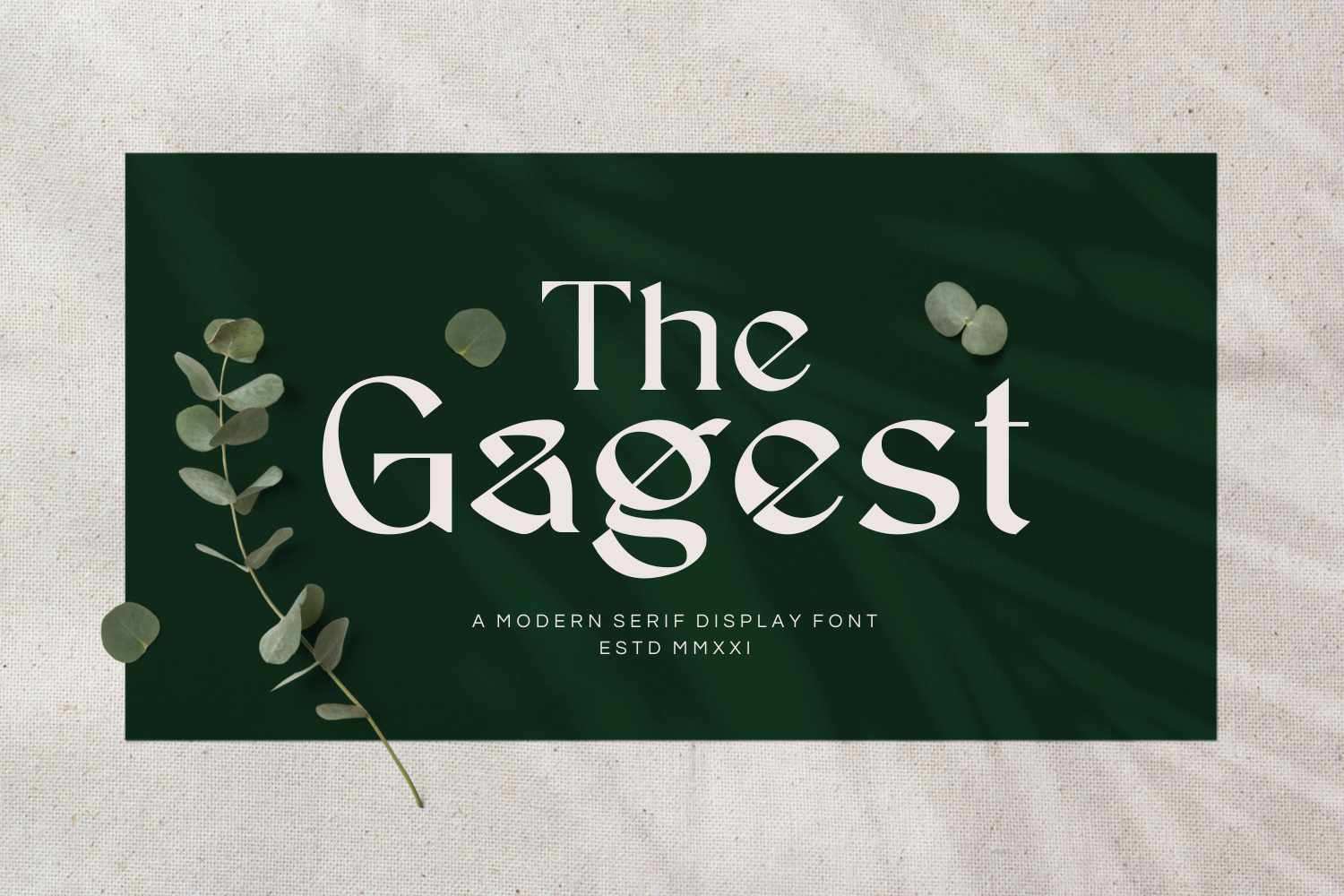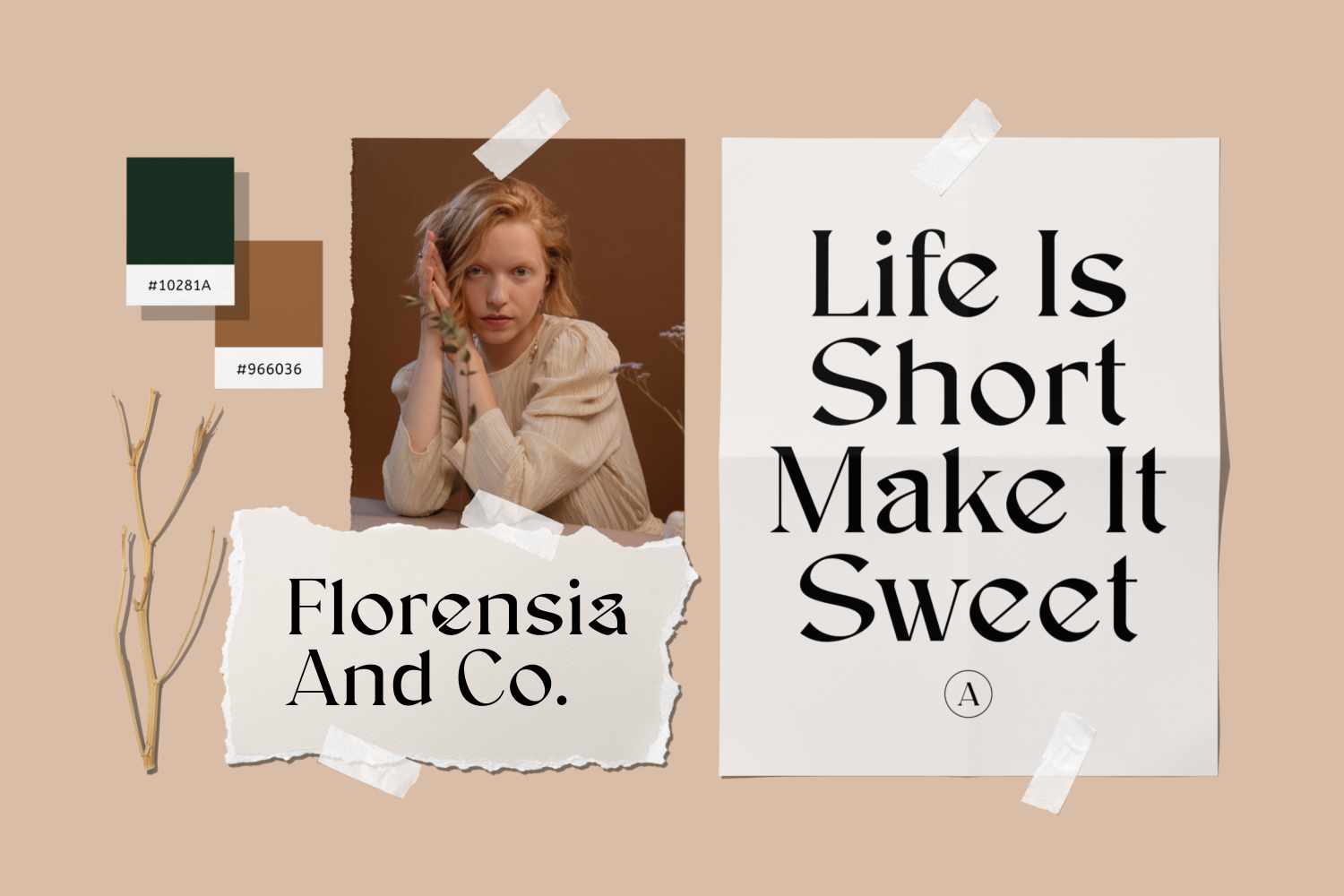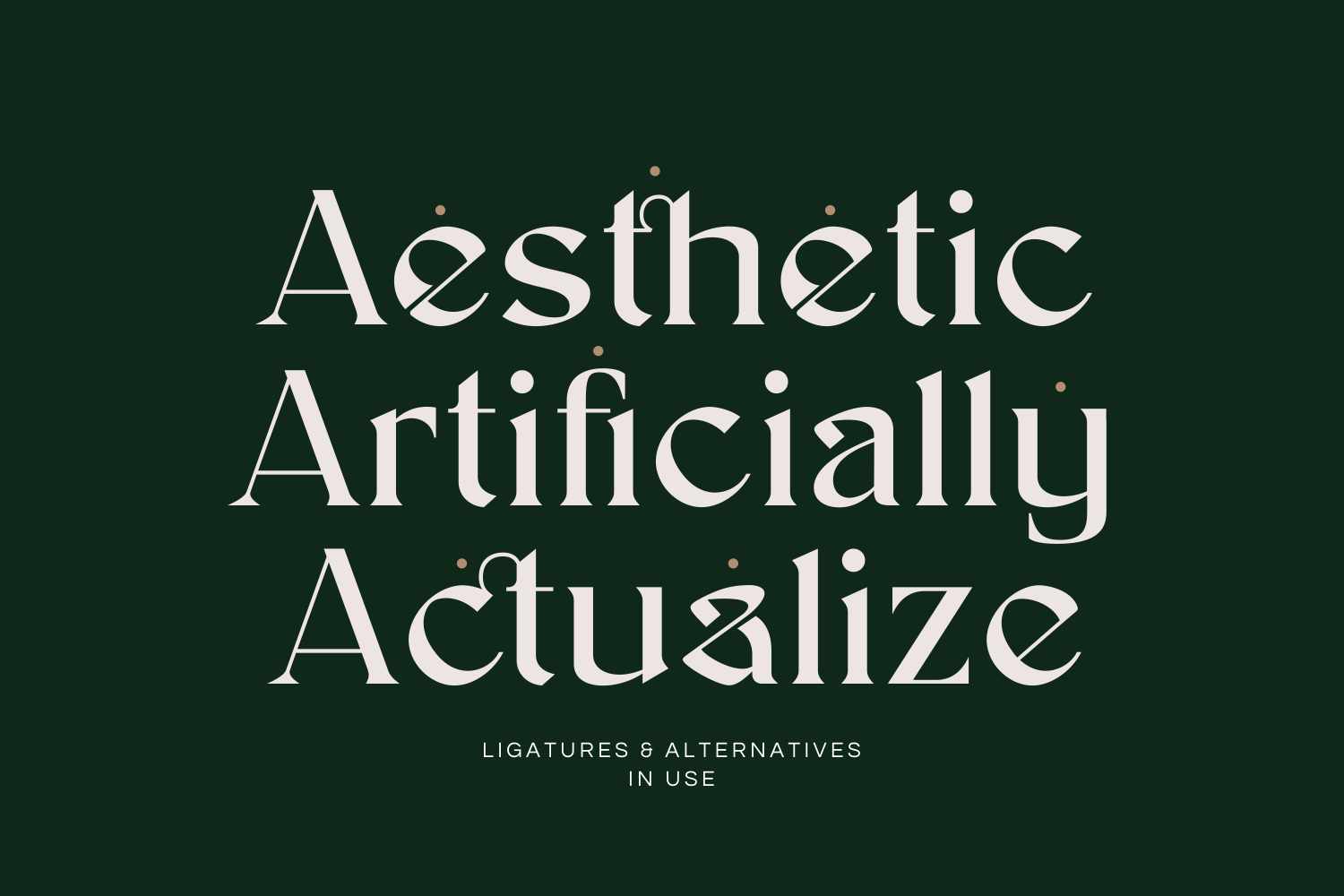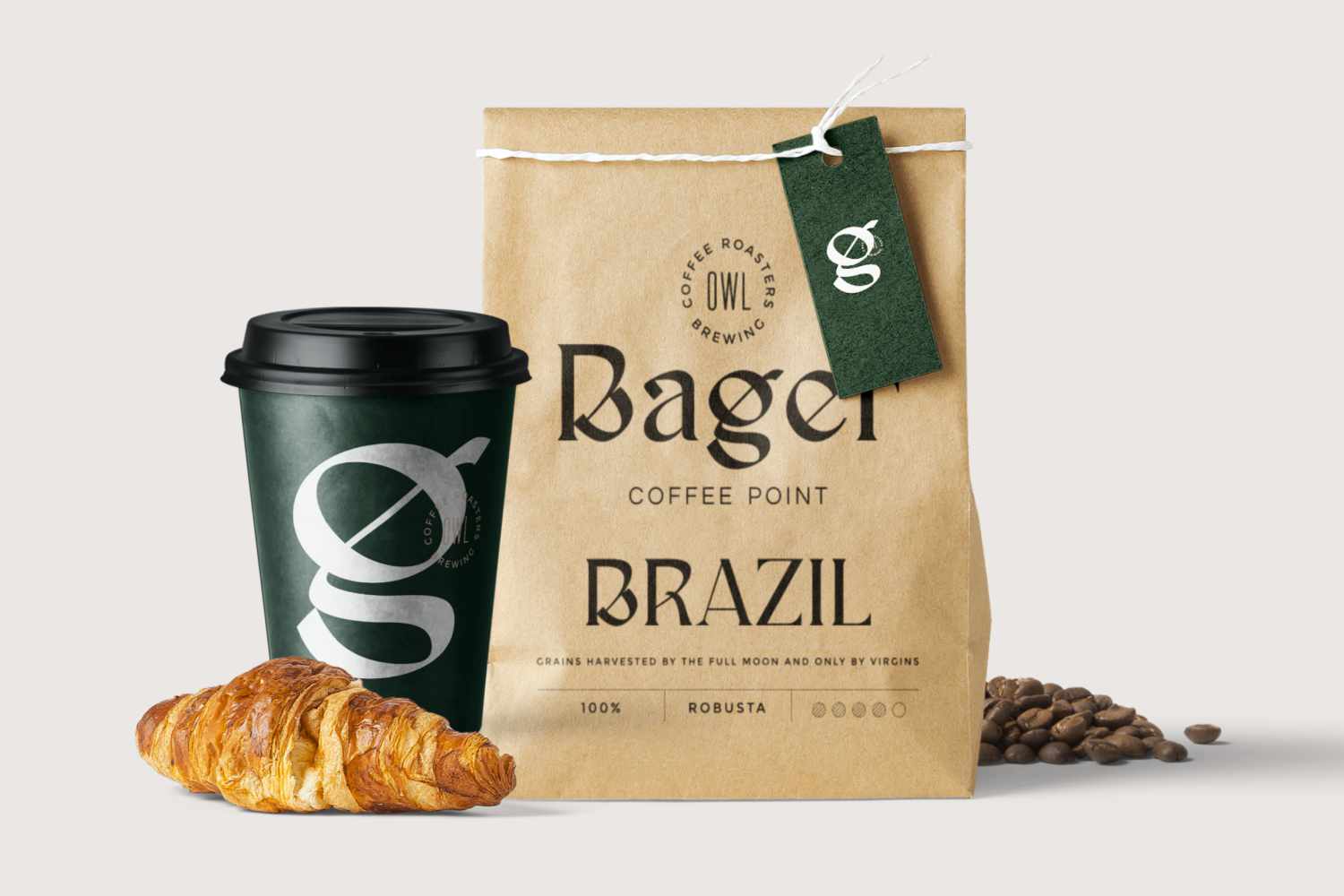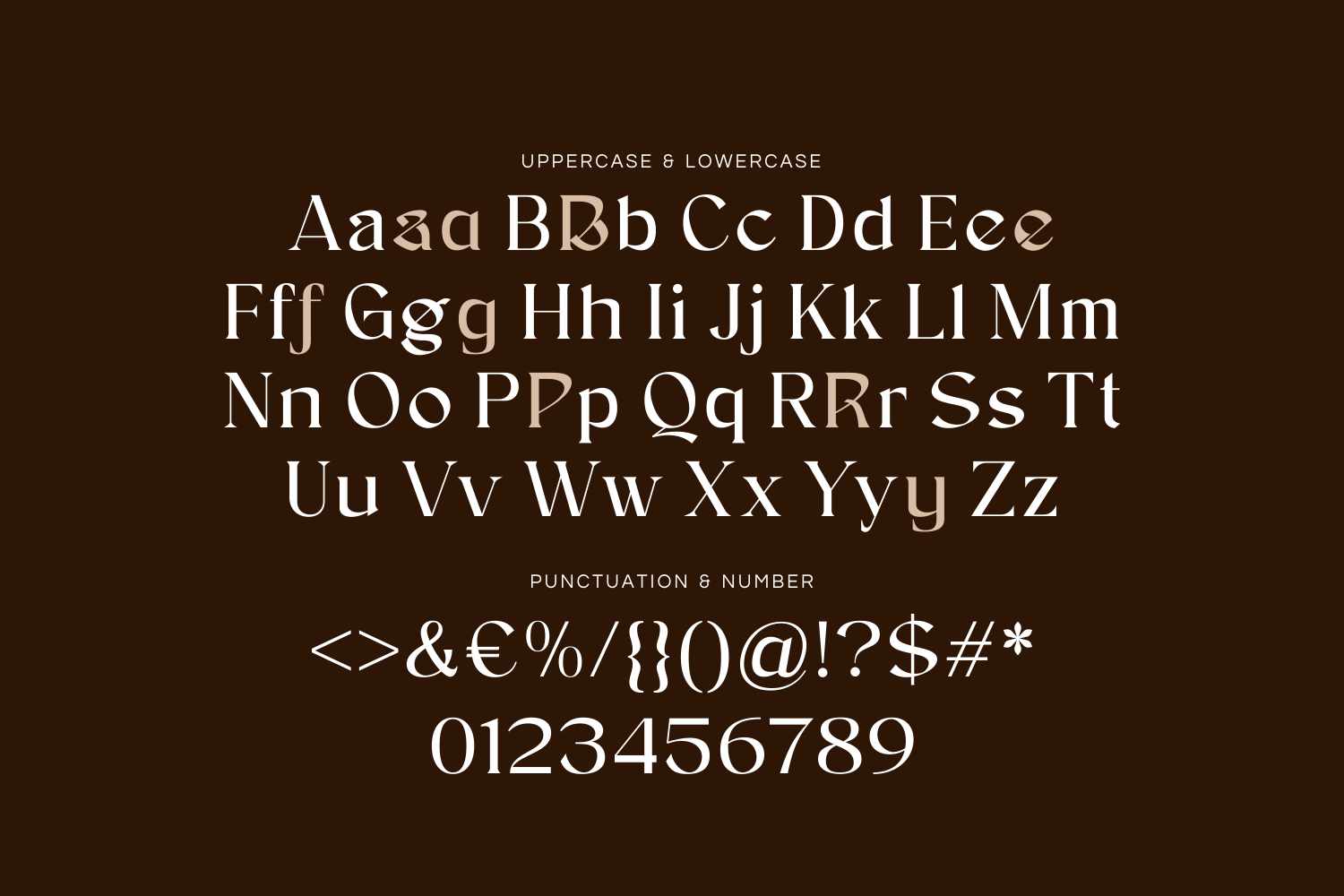
The Gagest is a modern serif display font that stands out with its striking ligatures and experimental character shapes. Its sharp serifs and contrasting stroke weights provide an elegant yet edgy feel, perfect for luxury branding, editorial headlines, and packaging design. The unique construction of letters like “a”, “g”, and “e” gives it a high-fashion aesthetic while maintaining clarity and sophistication.
Designed for creative professionals, The Gagest offers a refined typographic experience that balances functionality with expressive character. Its stylistic alternates and multilingual support make it versatile for a wide range of projects—from minimalist logos to artistic posters. Whether you’re aiming for a bold statement or a refined presence, this font adds a distinctive charm to any composition.